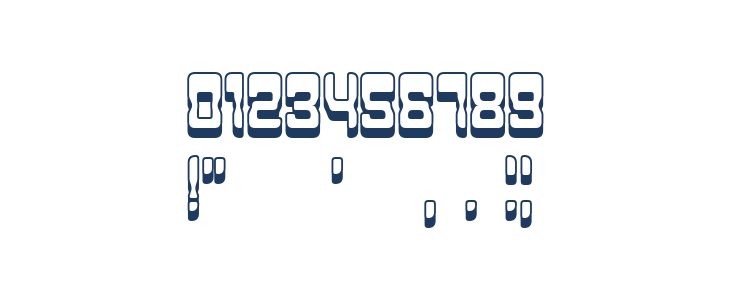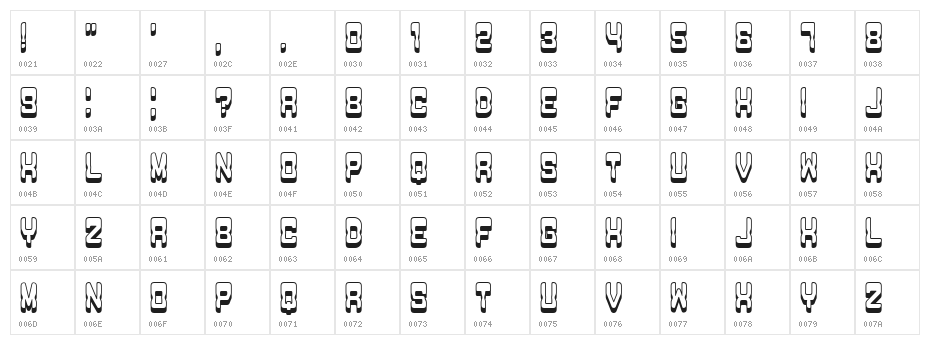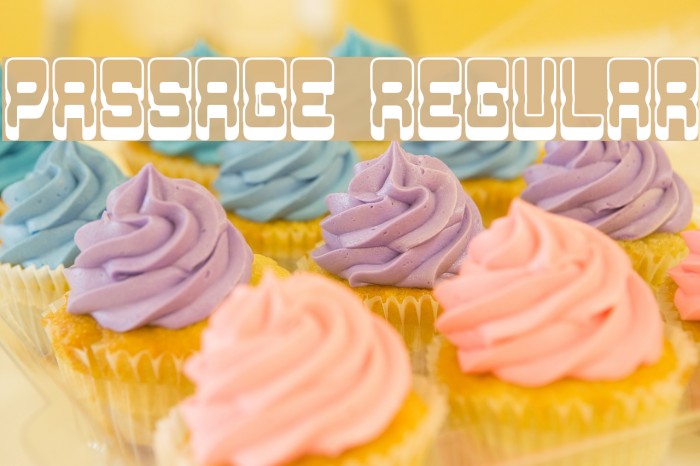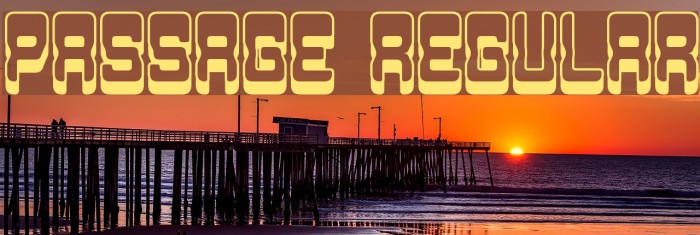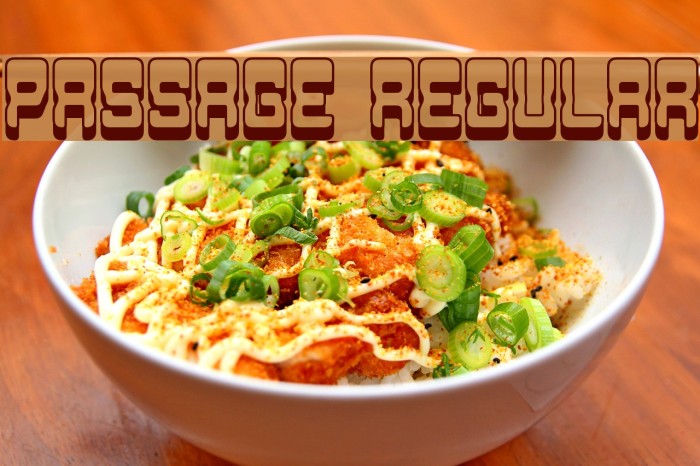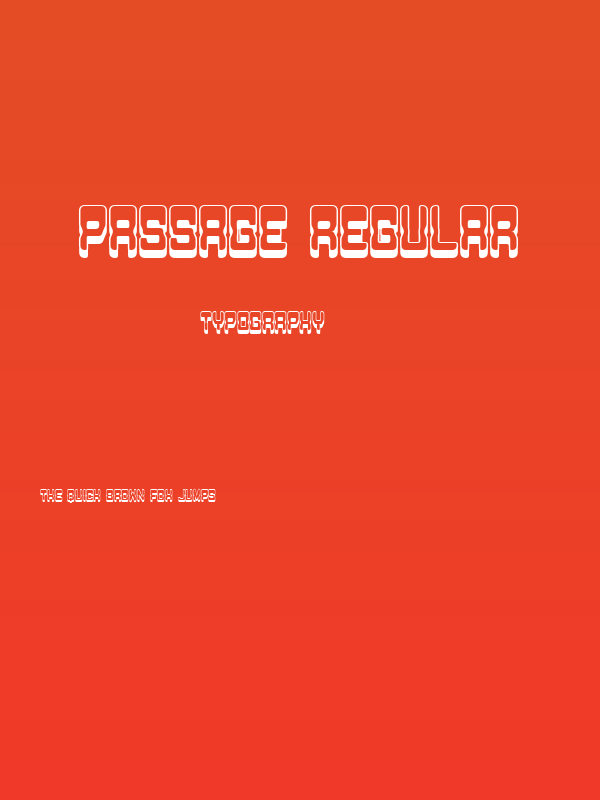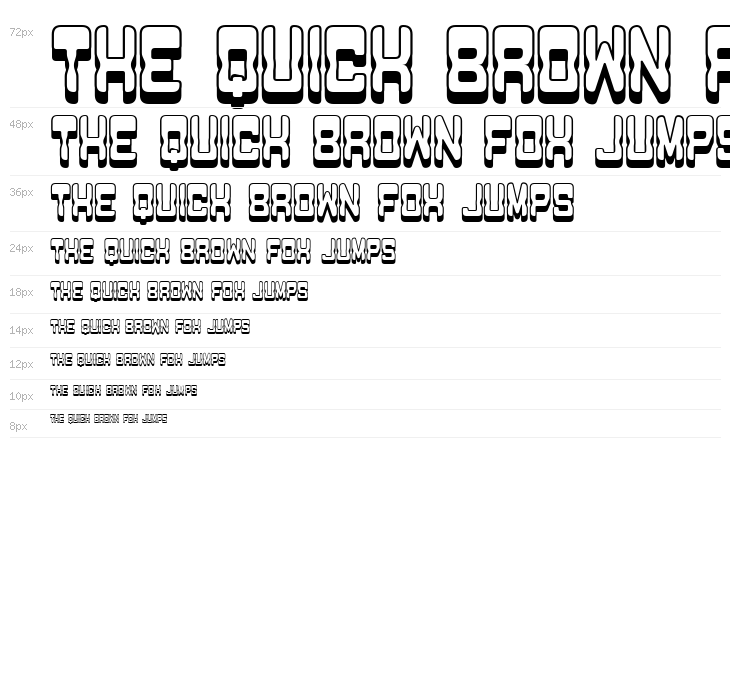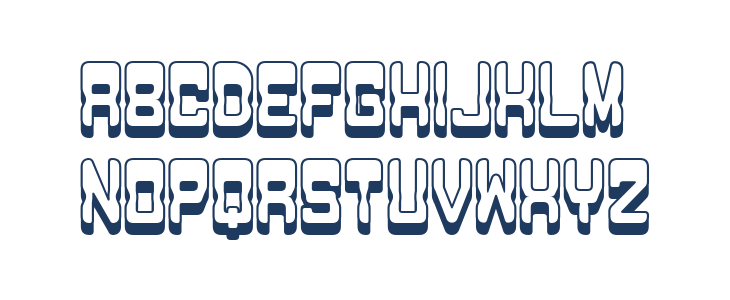
Passage Regular Font
Passage Regular Description
This font features a bold, three-dimensional appearance with a shadow effect that gives it a distinct, eye-catching look. The characters are uppercase and have a blocky, geometric style with rounded edges, creating a playful yet strong visual impact. The shadow effect is consistent across all characters, adding depth and a sense of movement. This font is ideal for designs that require a standout, modern aesthetic with a touch of retro flair. The uniformity in character width and height ensures a cohesive and balanced appearance, making it suitable for various design applications.
| Proposed Projects | Ideal for posters, logos, headlines, and any design needing a bold, modern touch. |